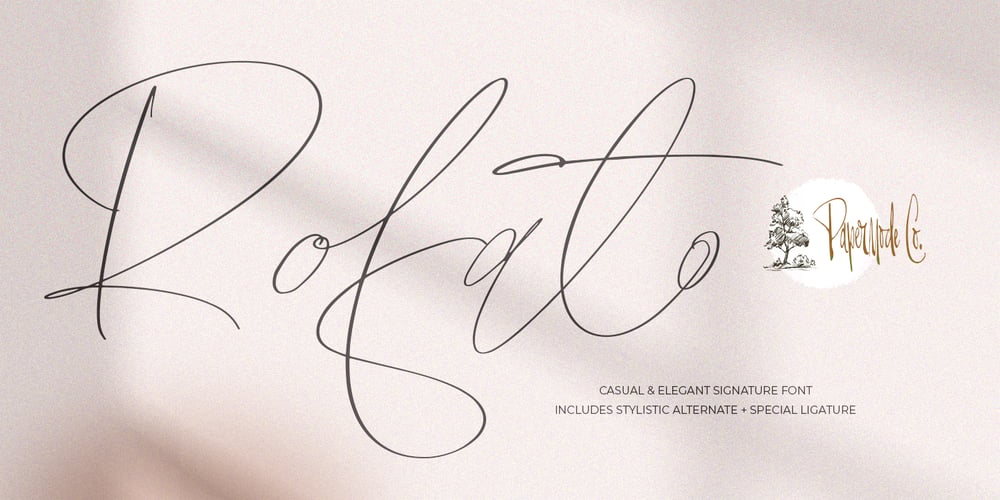
Rofato
Rofato font
Rofato Font Family was designed by Mira Kartika Sari and published by Papermode Co. Rofato contains 1 styles and family package options. Rofato is a beautiful and light handwritten font with a unique feel and a stunning impact. It will add a luxury spark to any design project that you wish to create! This font is PUA encoded which means you can access all of the amazing glyphs and ligatures with ease!Try Rofato, enjoy the richness of OpenType features and let her fun and elegant excitement make you happy and enhance your creativity! You can use this font very easily.Included multiligual support and special ligaturesIf you do not have programs that support OpenType features like Adobe Illustrator and CorelDraw X Versions, you can access all alternates using Font Book (Mac) or Character Map (Windows).Thank you!